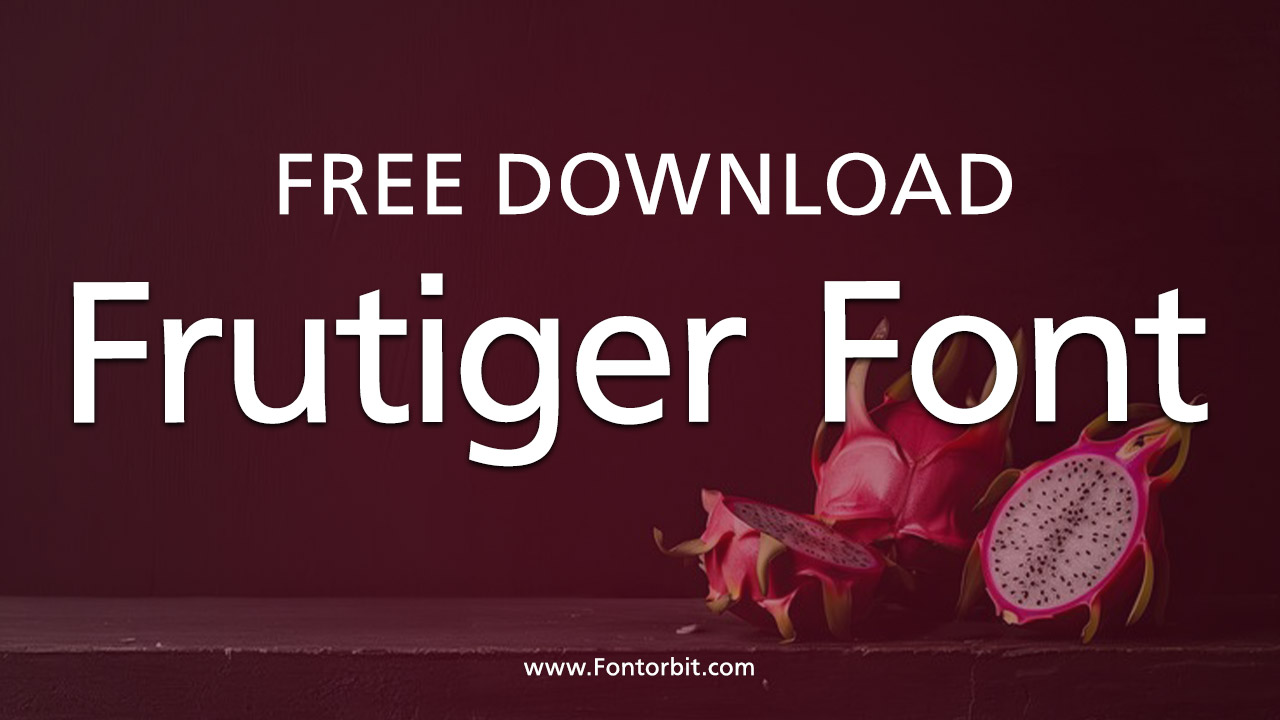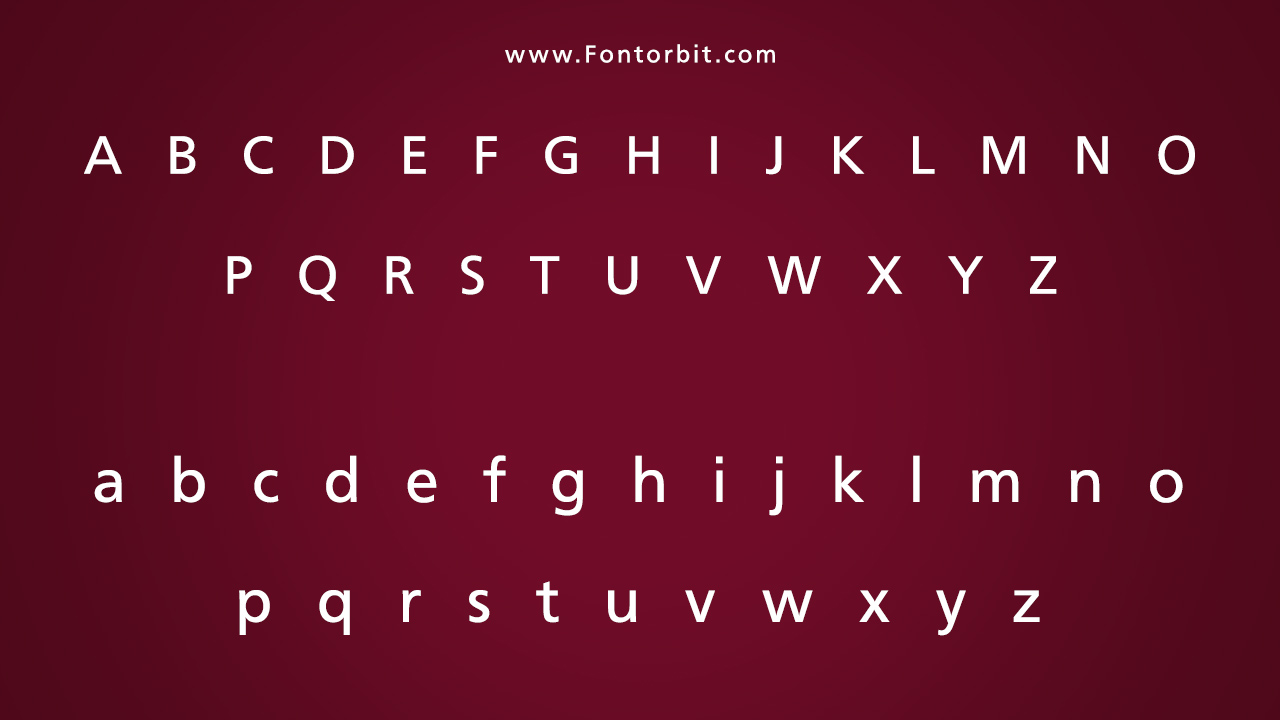
Frutiger Font is a timeless and versatile typeface designed for a wide range of applications. Created by the Swiss designer Adrian Frutiger, it was initially developed for airport signage but has since gained popularity in various design contexts. The font’s clean and clear structure makes it suitable for both print and digital media.
Type Of The Frutiger Font (Font Family)
Frutiger Font is ideal for designers seeking a modern and highly legible typeface. It belongs to the humanist sans-serif family and is recognized for its adaptability in both small and large text sizes. The Frutiger Font family includes several styles, making it a flexible option for different design needs. These styles include:
- Frutiger
- Frutiger Bold
- Frutiger Pro 45 Light
- Frutiger Pro 46 Light Italic
- Frutiger Pro 55 Roman
- Frutiger Pro 56 Italic
- Frutiger Pro 65 Bold
- Frutiger Pro 66 Bold Italic
- Frutiger Pro 75 Black
- Frutiger Pro 76 Black Italic
- Frutiger Pro 95 Ultra Black
- Frutiger Pro 47 Light Condensed
Frutiger Font’s versatility makes it ideal for designs requiring functionality and aesthetics. Its clarity ensures it works well for signage, digital interfaces, and detailed editorial work.
Frutiger Font is a versatile and timeless typeface that stands out in both print and digital design due to its exceptional legibility and clean structure.
The variety of styles within the Frutiger family ensures that it can be used across diverse design applications, from corporate branding to wayfinding signage. Whether you’re working on a large-scale project or fine-detail typography, Frutiger delivers clarity and professionalism.
1.How To Identify Frutiger Font In A Document?
Look for its humanist sans-serif structure, characterized by open apertures, clean lines, and consistent stroke widths. Frutiger is highly legible at both small text sizes and from a distance.
2.How To Create A Font Pairing With Frutiger Font And A Serif Font?
Frutiger pairs well with serif fonts like Times New Roman or Georgia. Use Frutiger for body text or signage, and complement it with a serif font for titles or subheadings.
3.What Kind Of Font Is Frutiger?
Frutiger is a humanist sans-serif font, known for its clarity and legibility. It’s highly adaptable and often used in signage, digital interfaces, and corporate branding.
4.What Are The Best Practices For Using Frutiger Font In Graphic Design?
Use Frutiger for text that needs to be highly legible, such as signage, user interfaces, and print layouts.
5.What Are The Best Pairings For Frutiger Font?
Frutiger pairs excellently with serif fonts like Times New Roman or Georgia, offering a classic contrast. It can also work well with modern sans-serif fonts like Avenir or Univers.